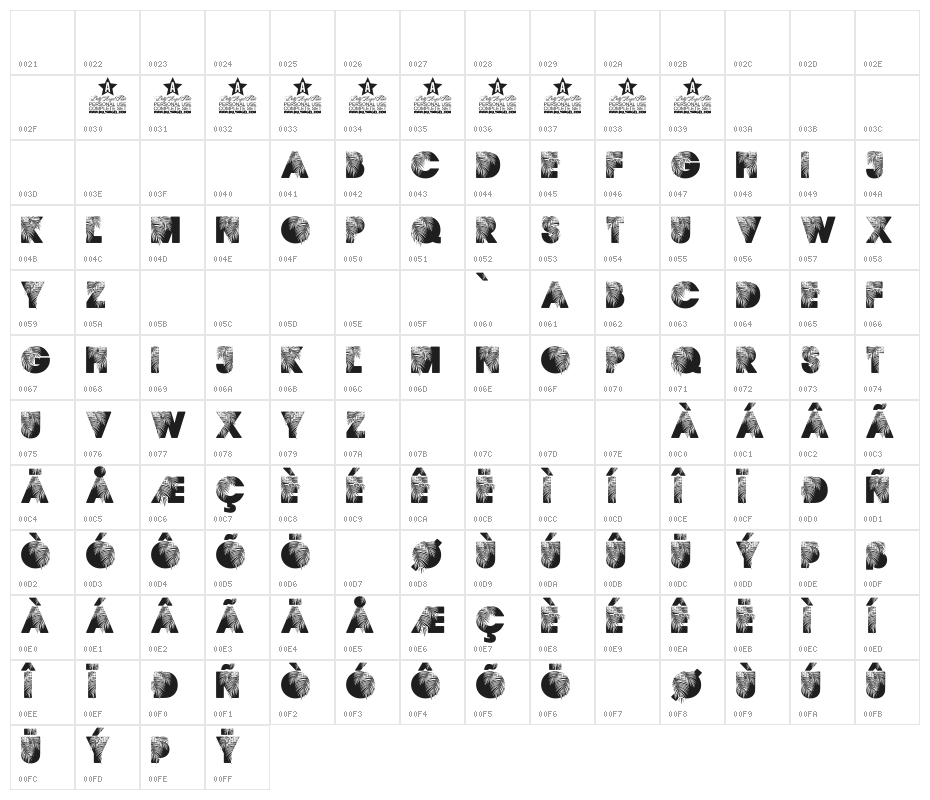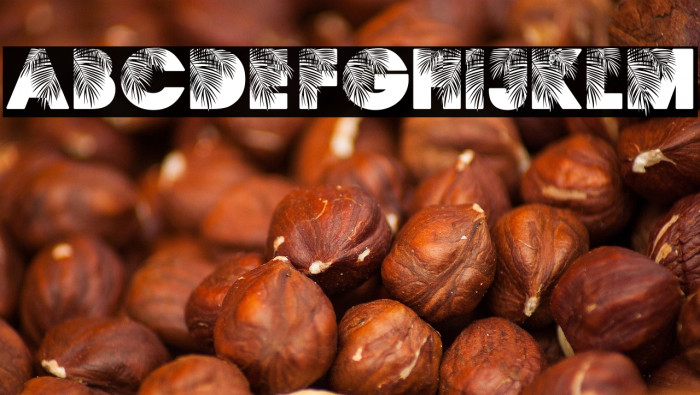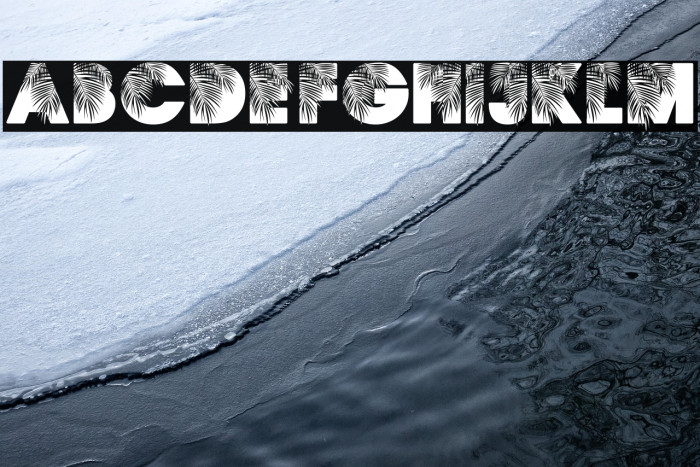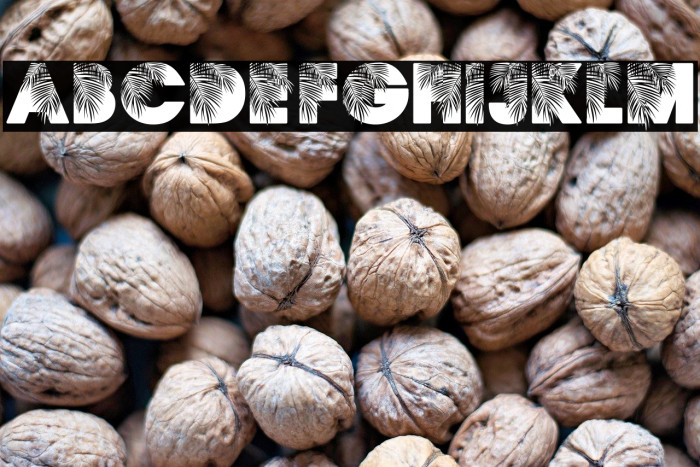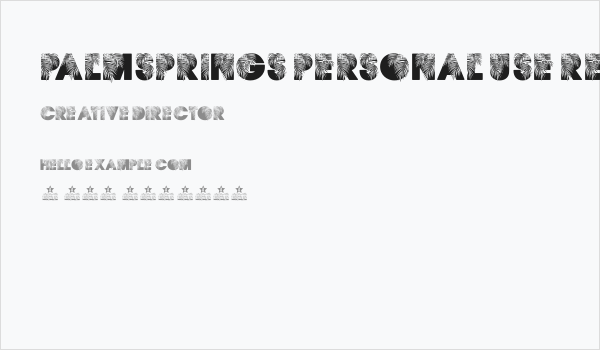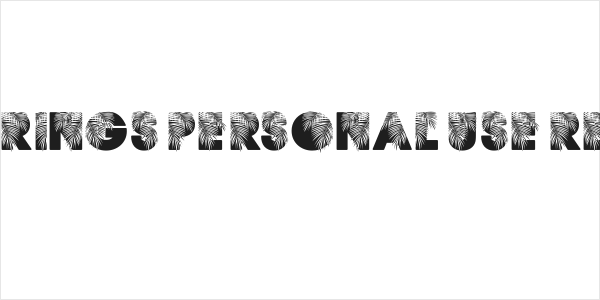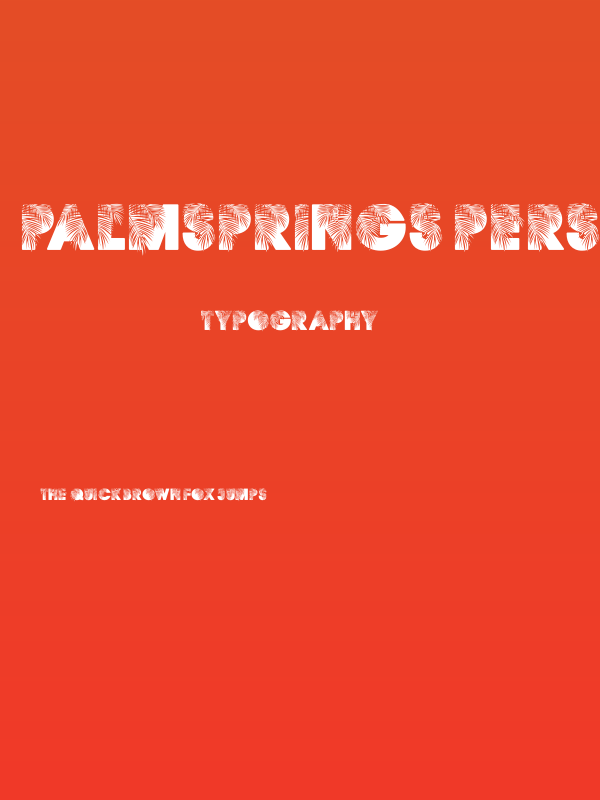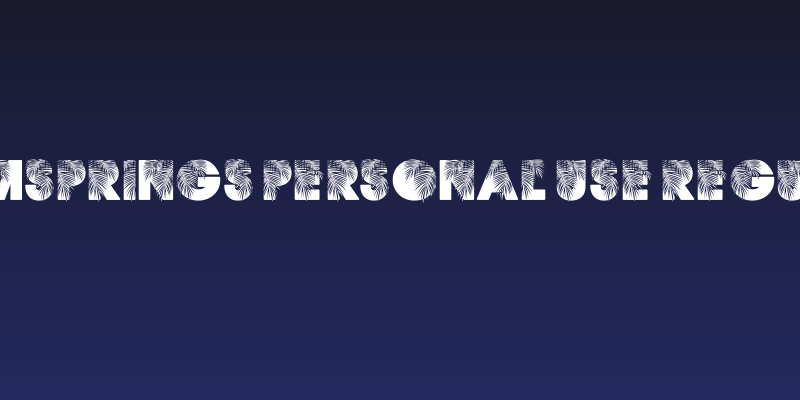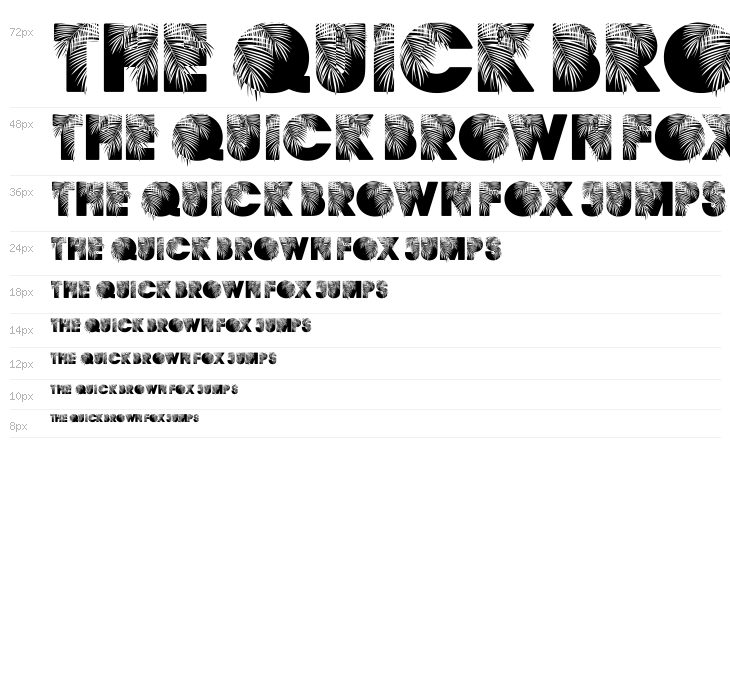
PALMSPRINGS PERSONAL USE Regular Font
PALMSPRINGS PERSONAL USE Regular Description
This font features a bold and decorative style with intricate palm leaf patterns integrated into each letter. The uppercase letters are designed with a strong geometric base, while the palm leaf motifs add a tropical and artistic flair. The font is visually striking, making it ideal for eye-catching designs. The unique combination of solid black areas and detailed leaf patterns creates a high contrast, enhancing its decorative appeal. This font is perfect for projects that require a touch of nature or a tropical theme, offering a distinctive and memorable look.
| Proposed Projects | Ideal for branding, posters, event invitations, and any design requiring a tropical or nature-inspired theme. |